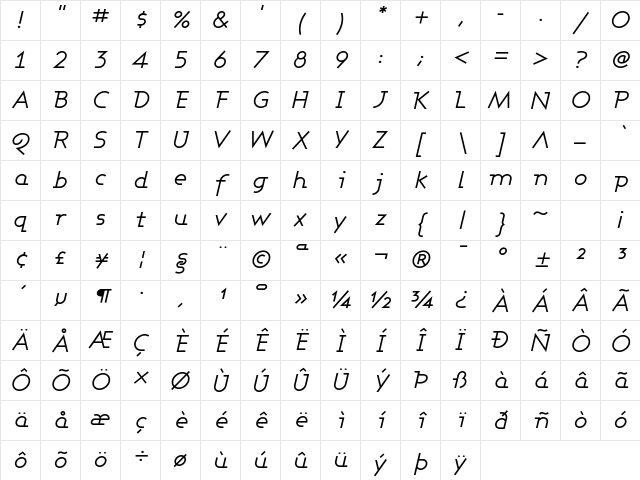
Ashby Book Regular
Design Context for Ashby Book
Ashby Book is a composed and adaptable typeface that performs quietly and consistently across a wide range of design contexts.